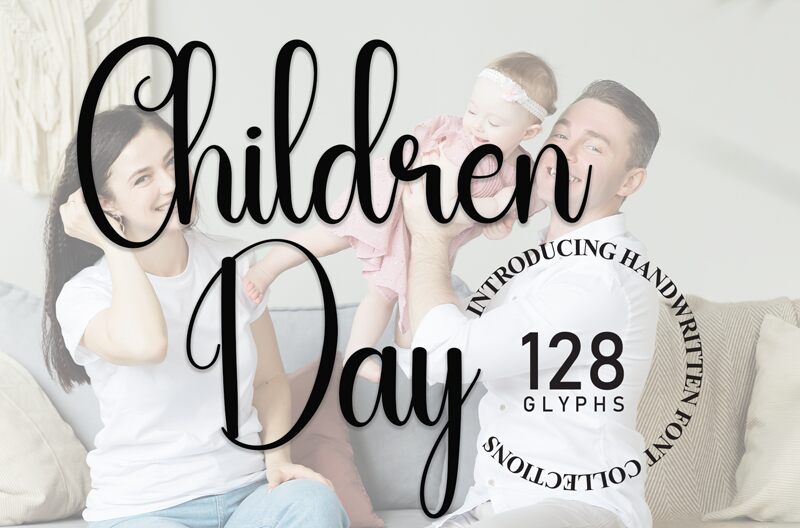
Children Day
Children Day, a handwritten font crafted by Andi Moz, exudes a sweet and friendly charm. This light-weight display font boasts a delightful, playful aesthetic, with its flowing, organic curves and whimsical flourishes. The imperfect, hand-drawn strokes lend a sense of warmth and character, creating a captivating visual appeal that evokes feelings of joy and playfulness.
This versatile font lends itself beautifully to a variety of design applications, from wedding invitations and greeting cards to children's artwork and product packaging. Its playful, approachable style makes it an ideal choice for adding a touch of playfulness and personality to any design project that requires a friendly, handwritten touch.